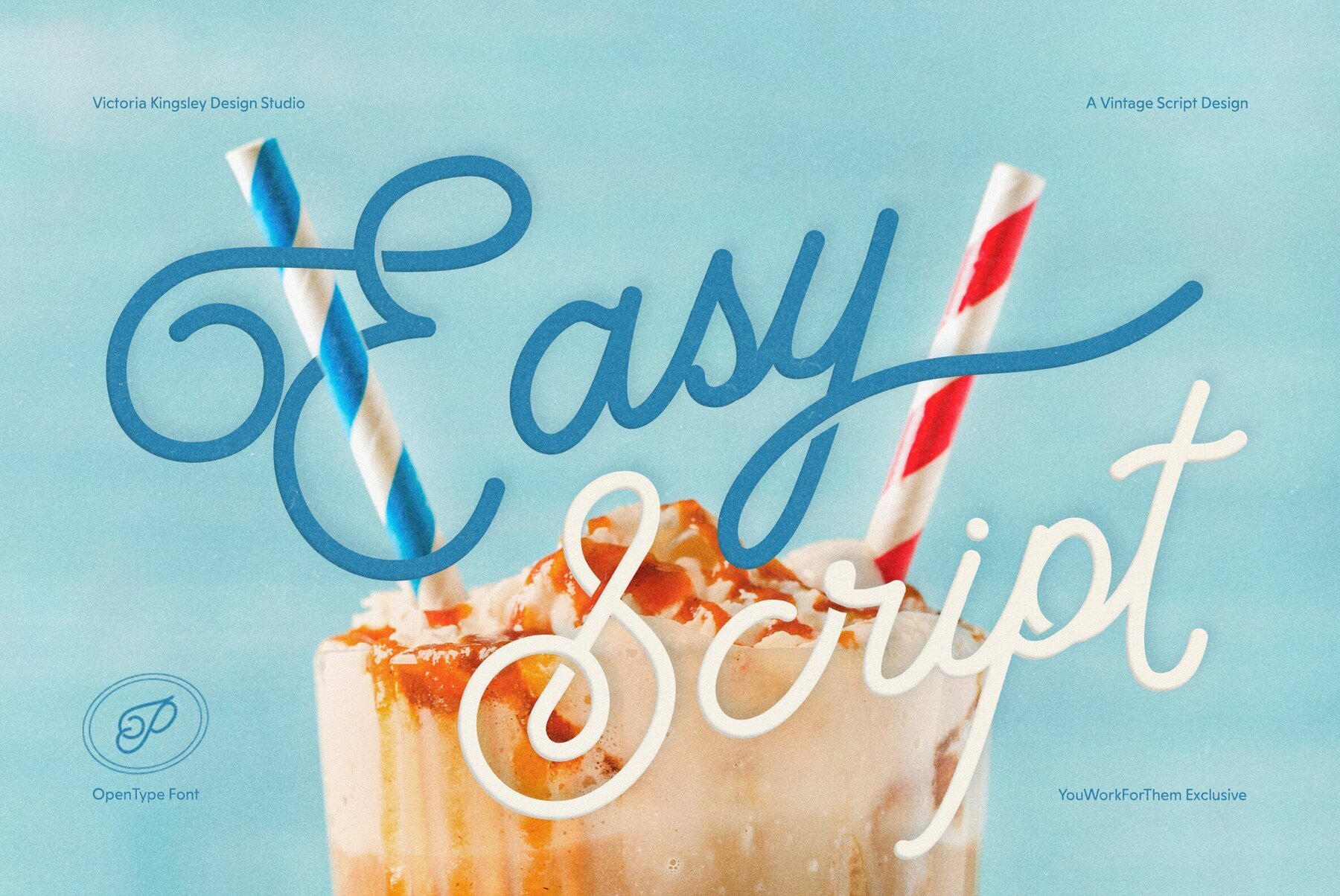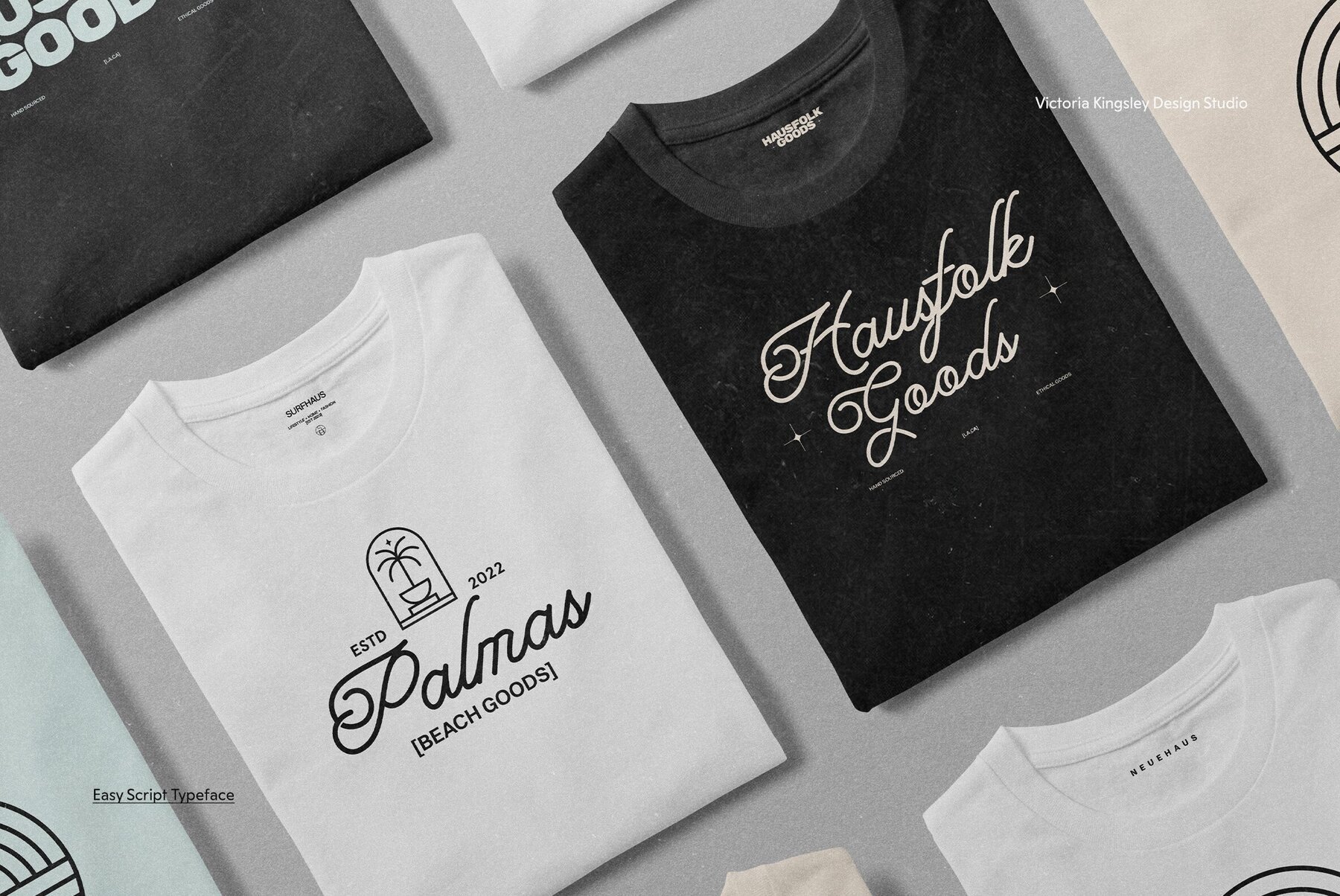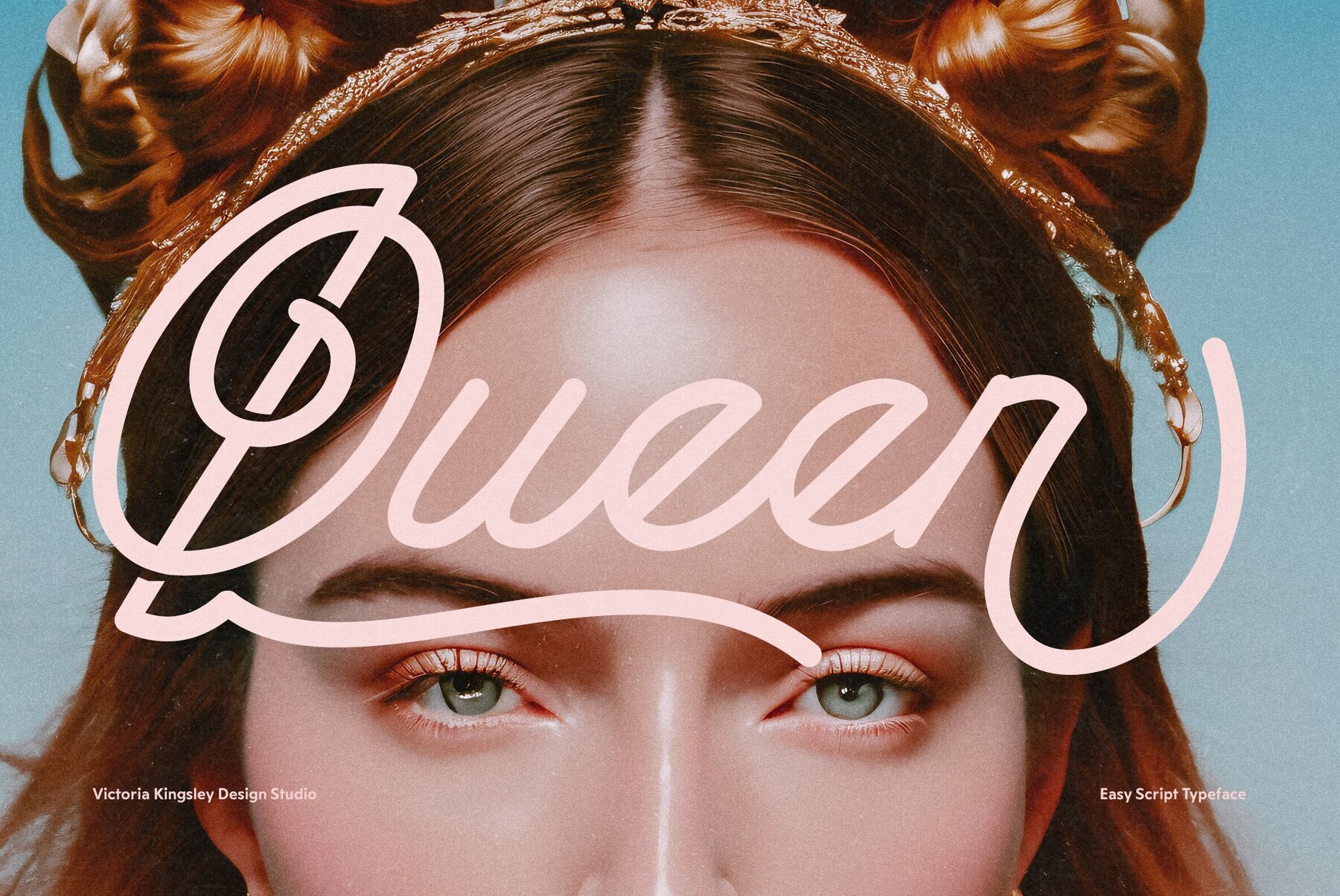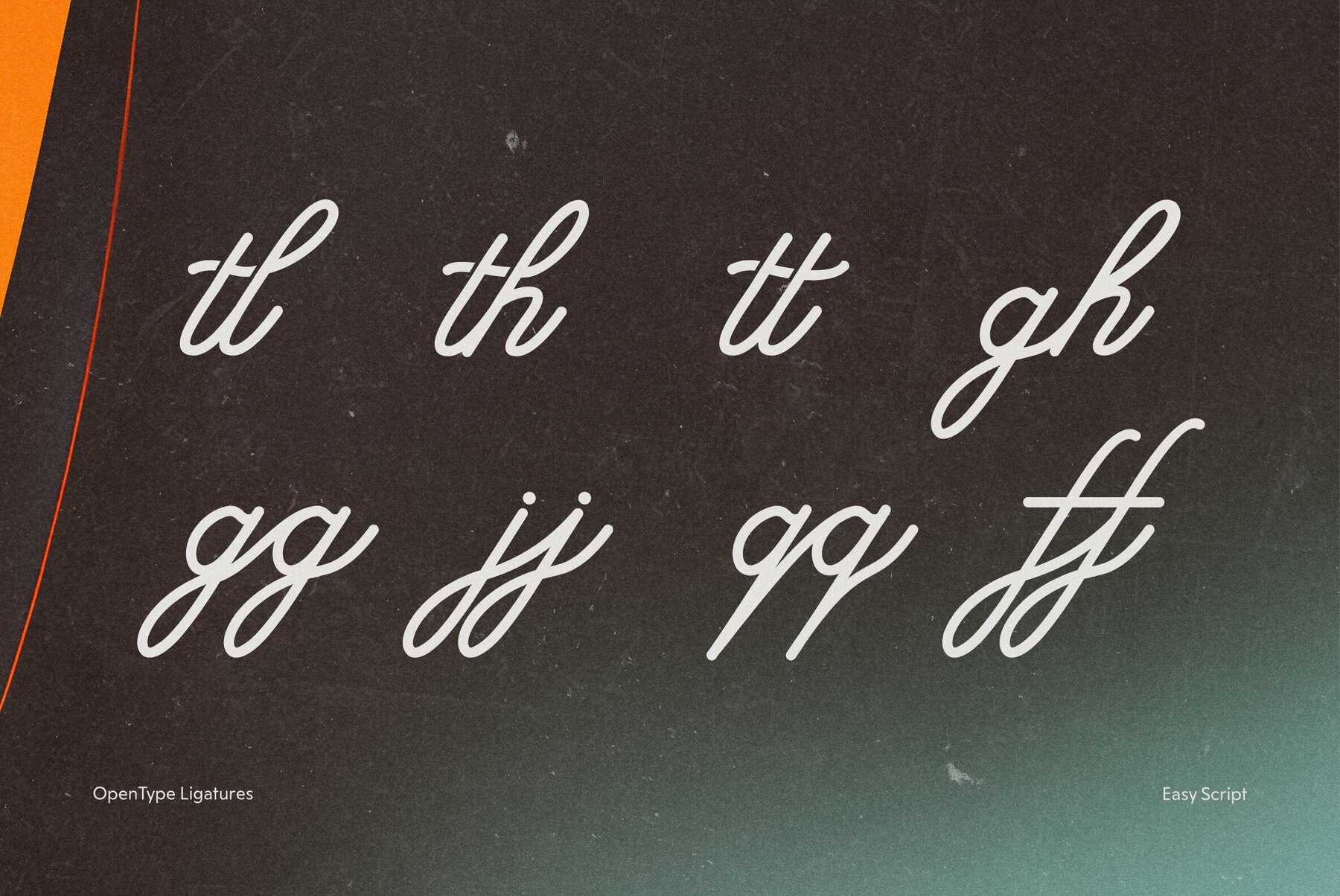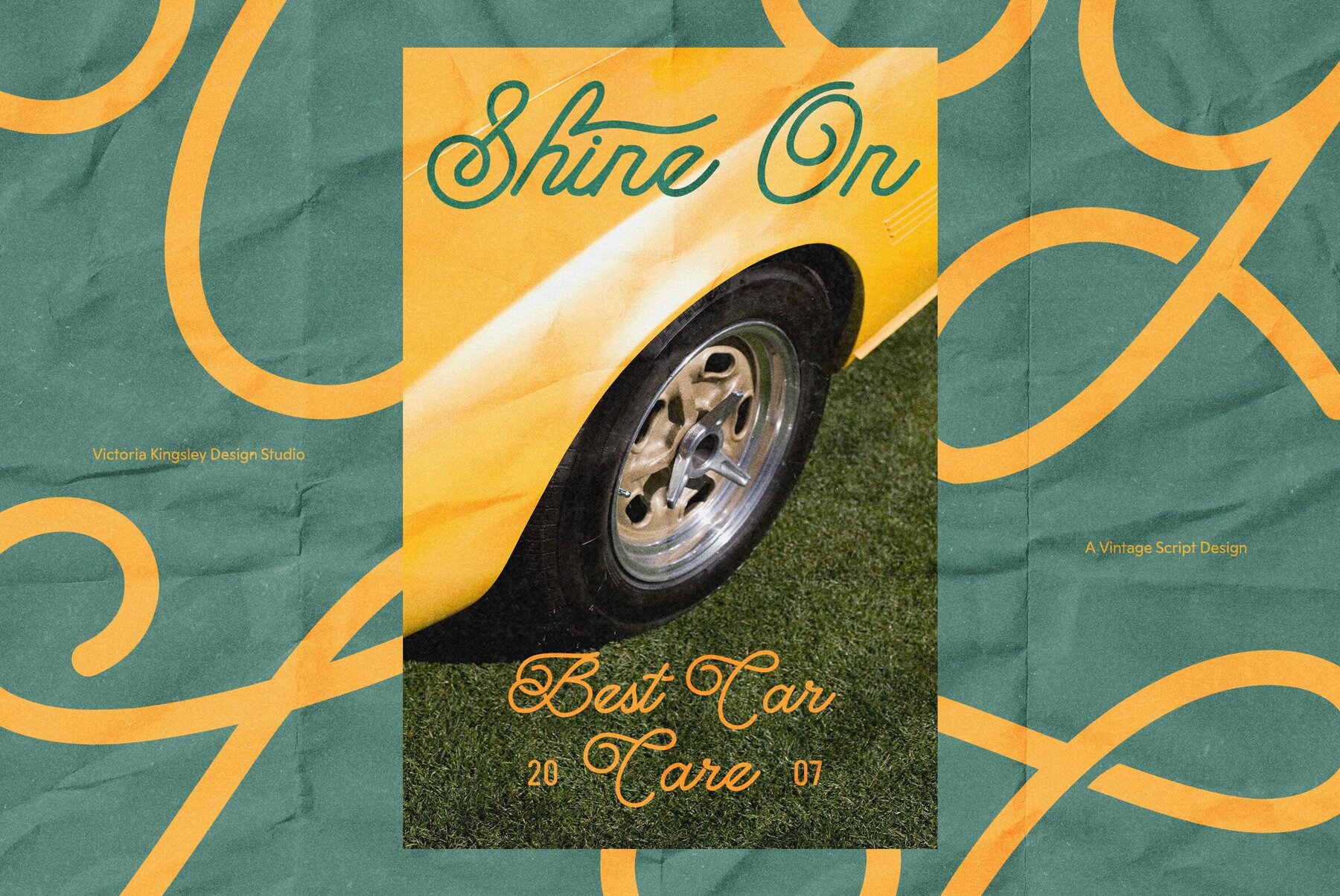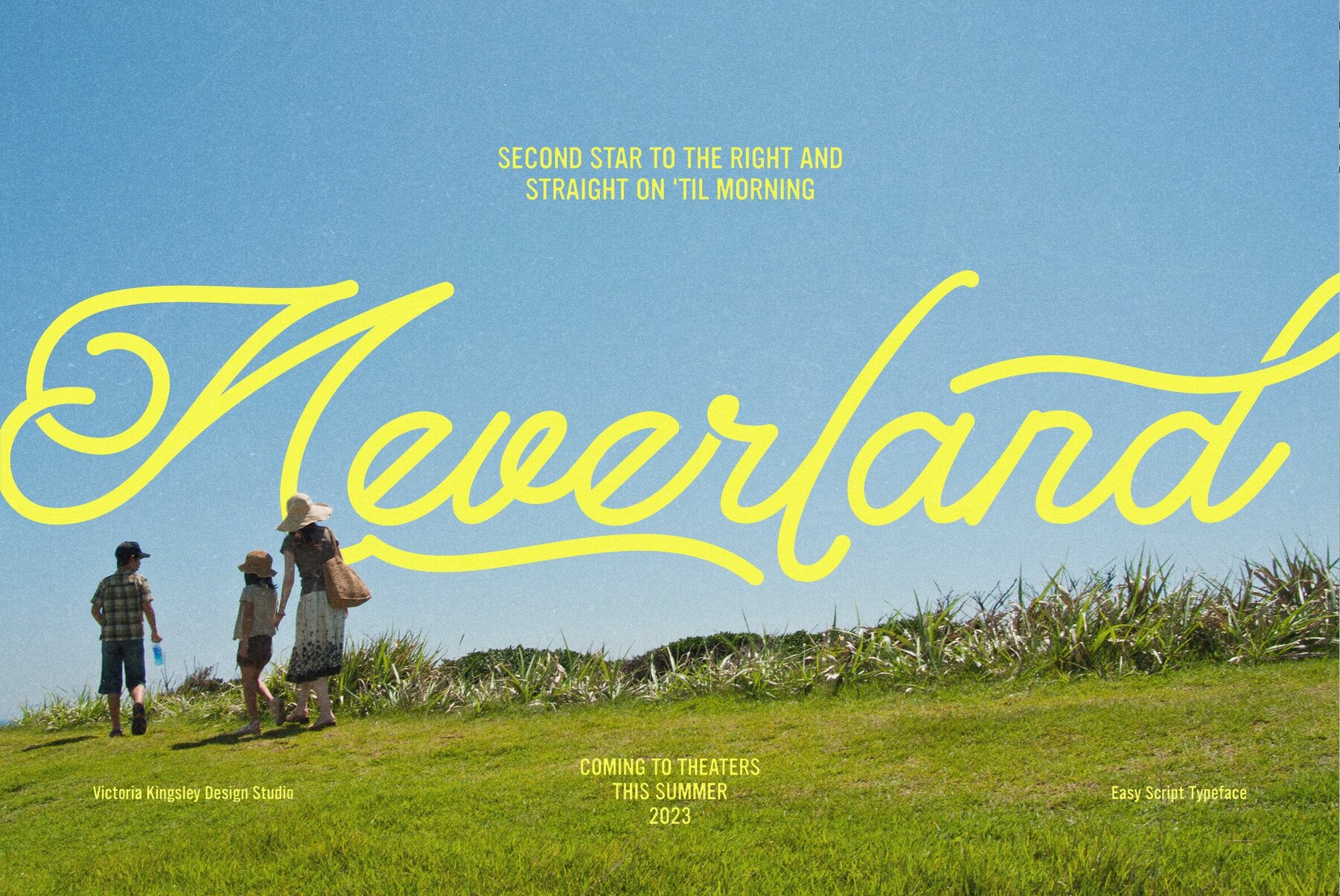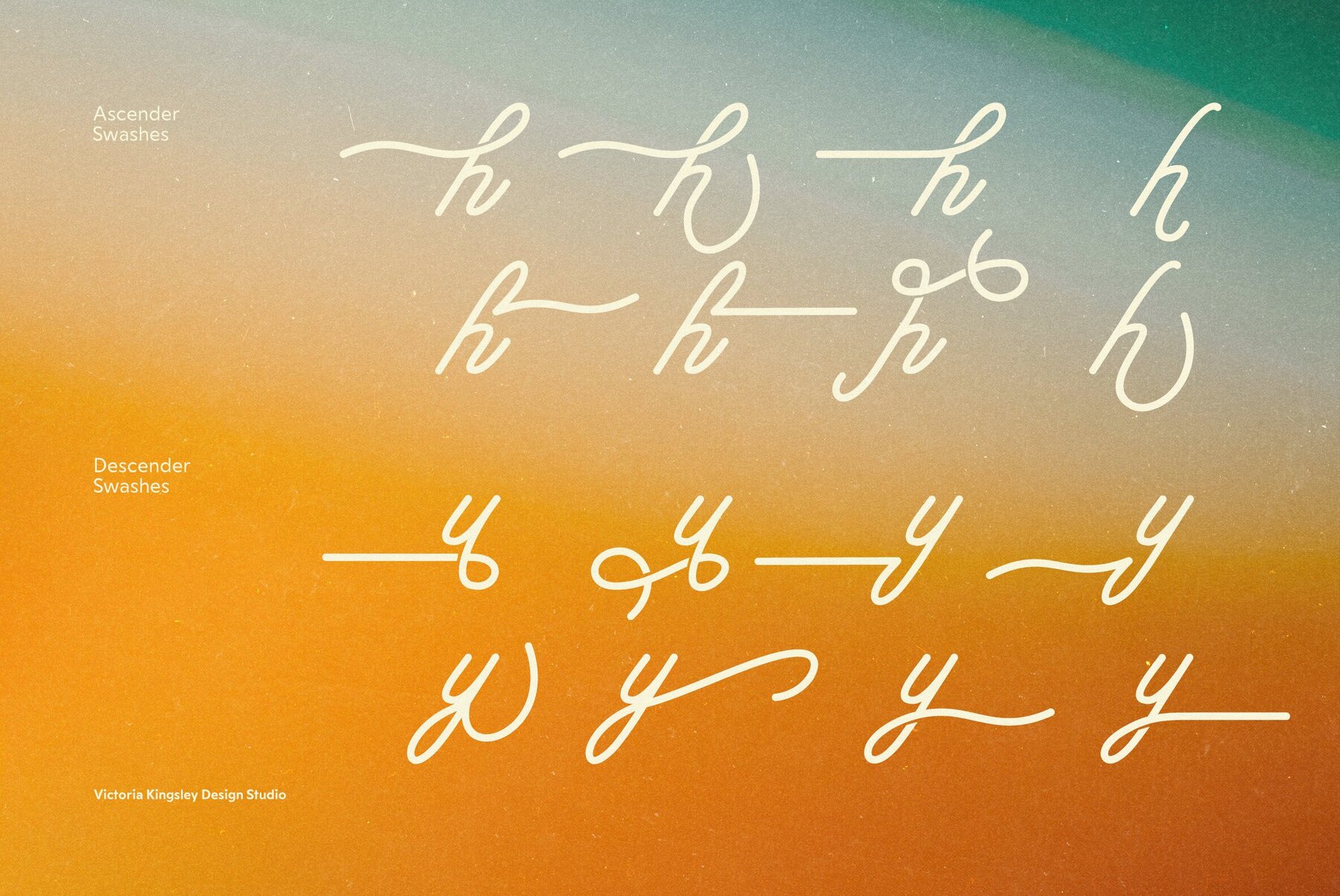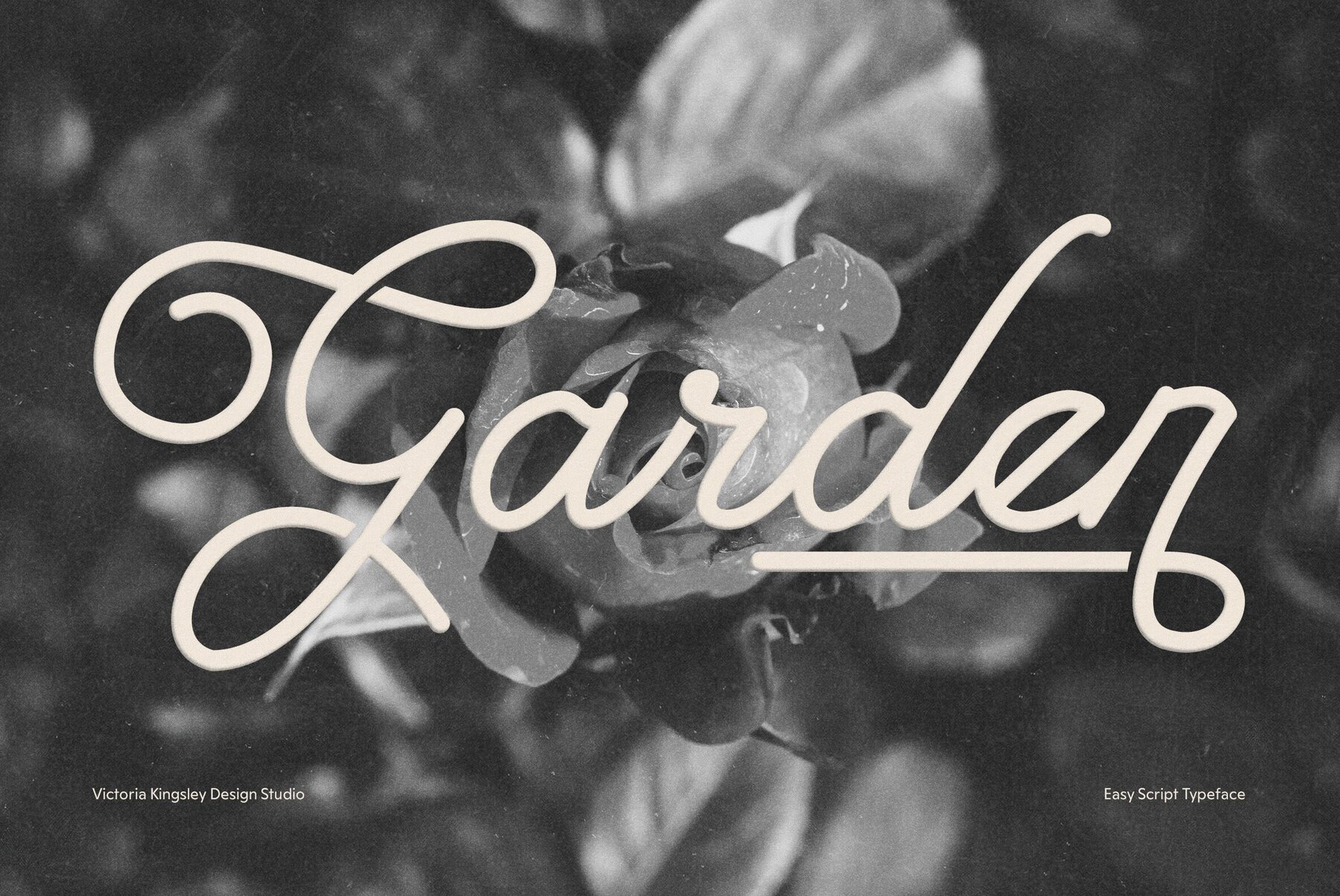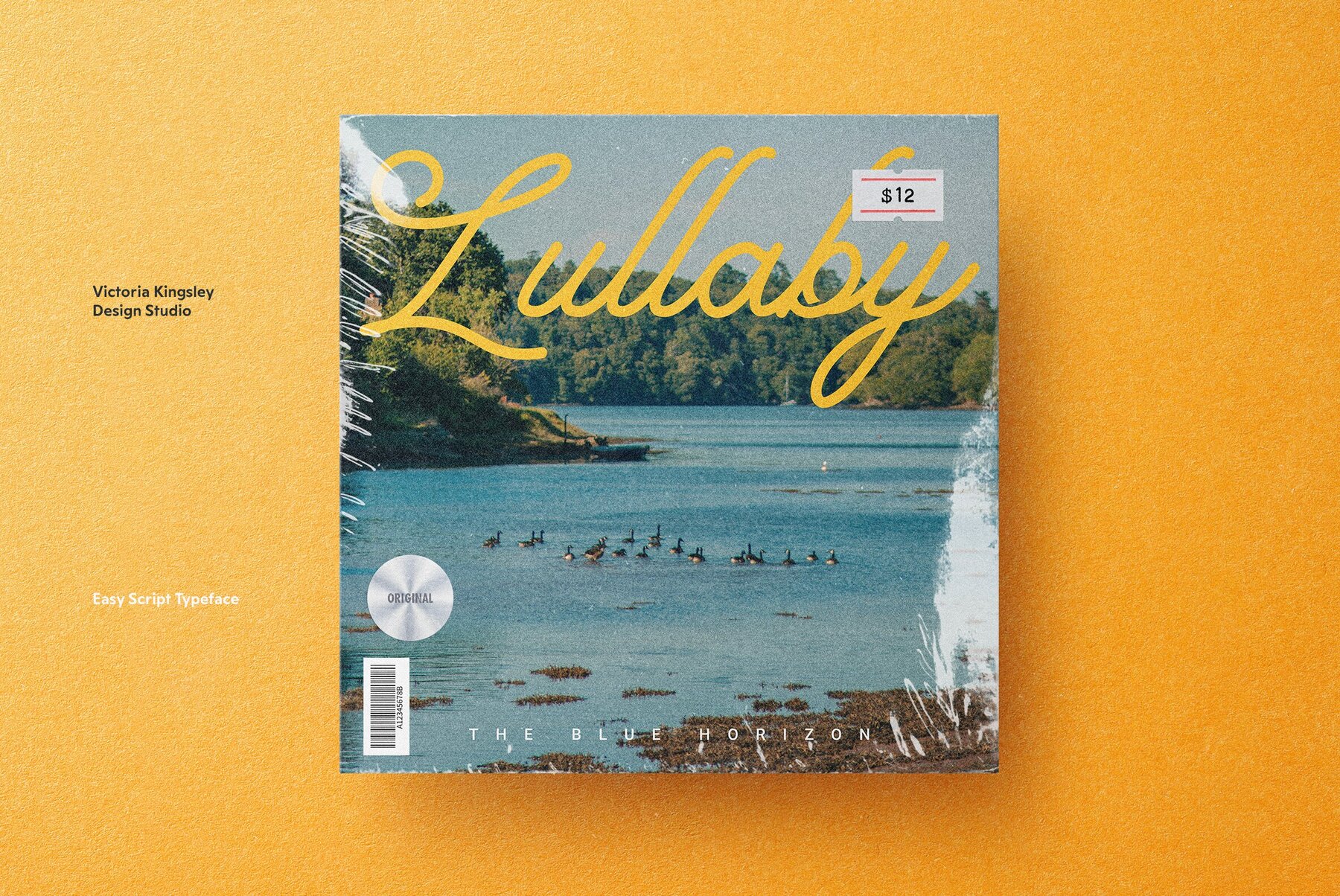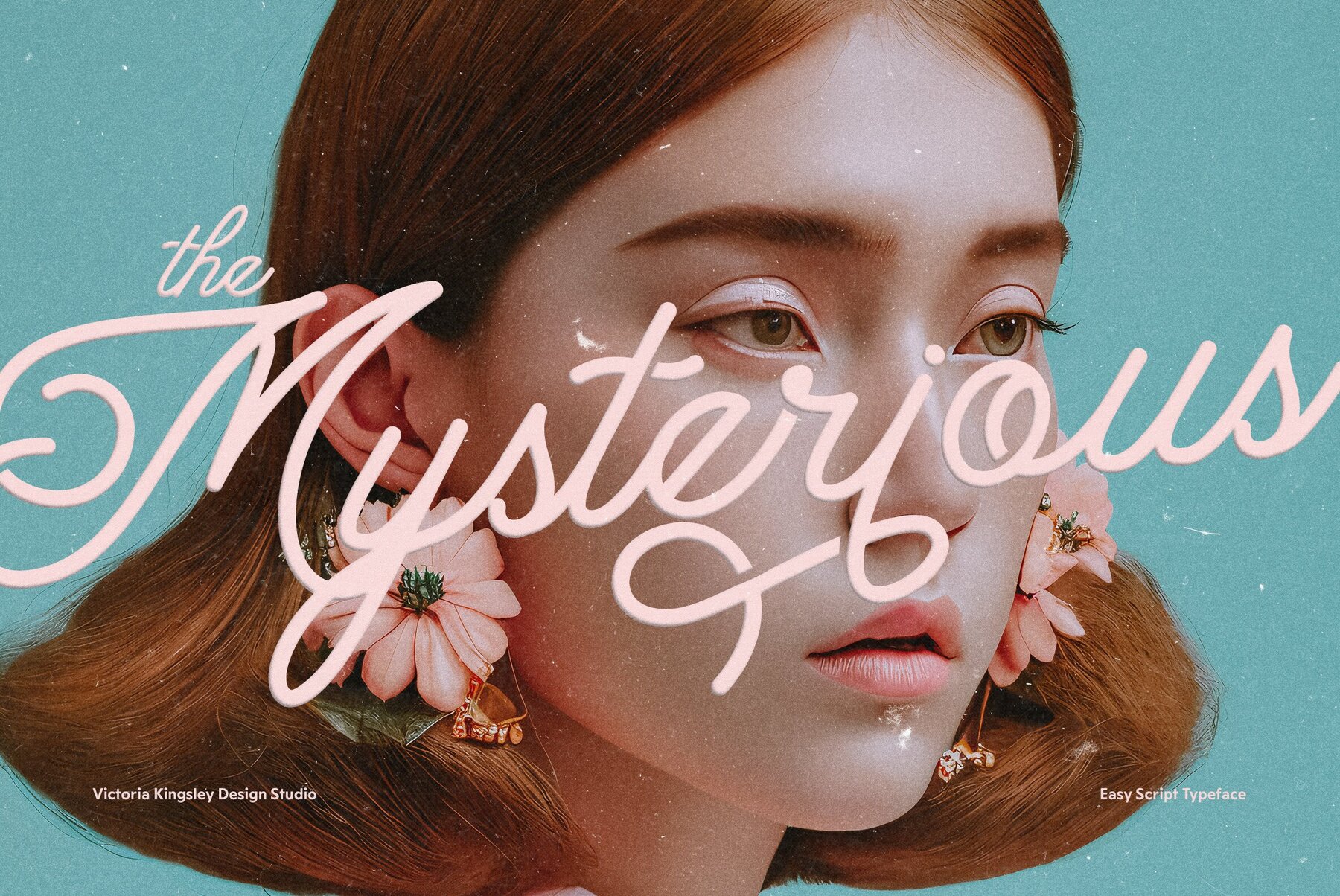
Introducing the newest font sensation from Victoria Kingsley Design Studio: Easy Script. This fun and retro script design is perfect for creating captivating headlines and simple display text. With its creative swash glyphs and wide range of design options, Easy Script is perfect for use in Instagram reels, magazine headlines, article headlines, and more. Available exclusively for download from YouWorkForThem, this font is a must-have for anyone looking to add a touch of creativity and uniqueness to their design projects.
Captivating Headlines
The main focus of Easy Script is to create captivating headlines that grab the attention of your audience. With its unique and creative swash glyphs, you can mix and match different letter combinations to create fresh and eye-catching headlines. Whether you're creating a new brand identity, designing a magazine cover, or crafting social media posts, Easy Script is the perfect font to make your headlines stand out.
Versatile Design Options
Easy Script includes a whopping 390 glyphs, providing you with an extensive letter supply of design options. You can use this font for a variety of design projects, from logos and branding to website design and print materials. With its retro and fun script design, Easy Script is versatile and perfect for adding a touch of personality and creativity to any design project.
User-Friendly and High-Quality